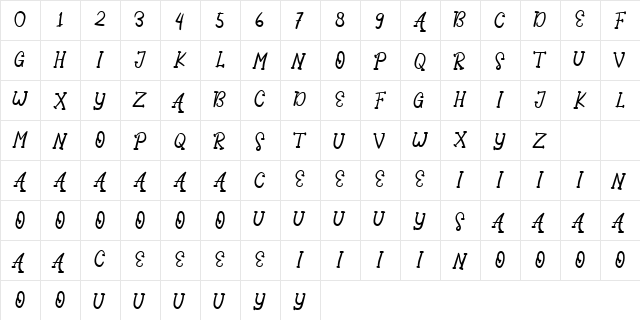
Awesome Party Regular
| Designer | jos gandos |
Design Context for Awesome Party Typeface
Awesome Party is a composed and adaptable typeface that performs quietly and consistently across a wide range of design contexts.